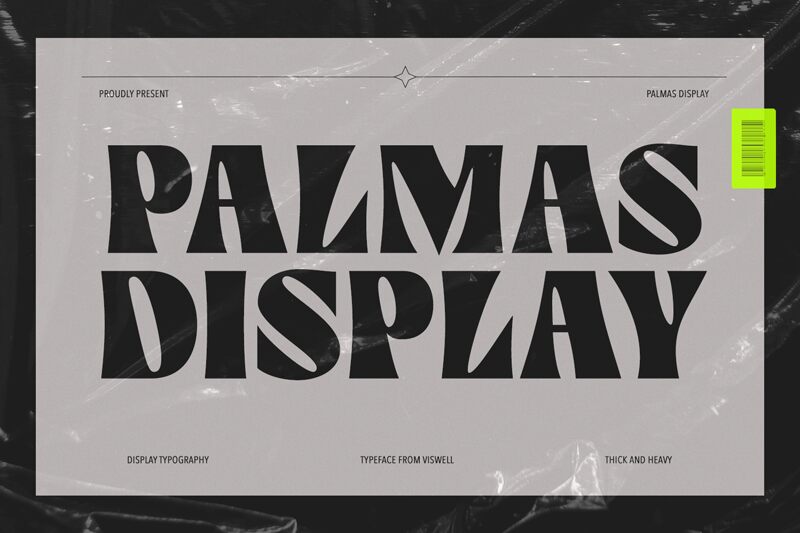
Palmas-Regular
Palmas font by Viswell Studio is a free retro display typeface that hits the eye like a bold poster pulled from a 1970s record shop window. Chunky, inky letterforms flare and taper, creating a playful push-pull rhythm between thick black shapes and narrow counters. The curves feel almost sculpted, giving words a strong, tactile presence even at a glance.
Using Palmas, short phrases snap into focus, making this free font a natural fit for posters, album art, branding, packaging, book covers, social graphics, and event flyers. It thrives in big sizes where its dramatic silhouettes can breathe. For body copy, pair Palmas with a clean geometric sans to keep layouts readable while letting its retro personality take the spotlight.